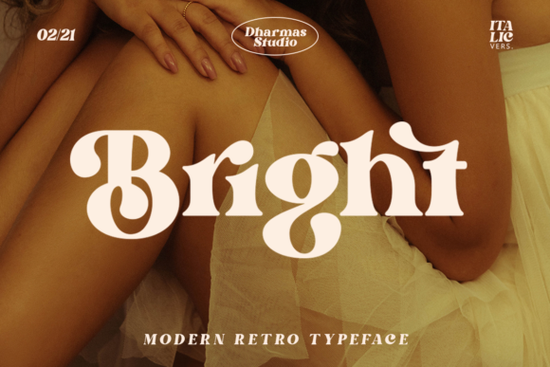
If you're working on a design that needs a little vintage charm with a clean, modern edge, Bright Font might be exactly what you’re looking for. This stylish serif typeface blends retro 60s and 70s aesthetics with bold clarity making it ideal for posters, packaging, branding, or even print-on-demand apparel. What sets it apart isn’t just its look, but how much flexibility it offers: over 50 unique alternates and ligatures are built right in, thanks to PUA encoding, so you can easily customize letterforms without switching fonts.
Why choose a serif font with retro flair?
Serif fonts like Bright carry a sense of tradition and reliability, but when they lean into retro styling, they also bring energy and personality. That balance is especially useful if you’re designing for small businesses, craft markets, or nostalgic-themed products. Unlike overly ornate vintage fonts, Bright stays legible and bold perfect for headlines, logos, or short blocks of text where you want visual impact without sacrificing readability.
If you enjoy experimenting with letterforms, you’ll appreciate how Bright’s alternates let you swap in different glyphs to create subtle (or dramatic) variations. This level of detail helps your work stand out, whether you’re making greeting cards, t-shirt designs, or social media graphics.
How does Bright compare to other creative serif fonts?
Not all serif fonts offer the same versatility. For example, Ethereal Font leans more delicate and script-like, great for wedding invitations or luxury branding, while Luxena Font brings high-contrast elegance suited for editorial layouts or upscale product labels. Bright sits in a sweet spot between those it’s structured enough for commercial use but playful enough to feel handcrafted.
Who is this font really for?
Bright Font works well for:
- Print-on-demand sellers creating retro-inspired mugs, posters, or apparel
- Small business owners building a brand identity with warmth and character
- Crafters and hobbyists designing custom stickers, party invites, or scrapbook elements
- Graphic designers needing a versatile headline font that doesn’t require extra plugins
Because it includes OpenType features accessible through most design software (like Adobe Illustrator, Photoshop, or even Canva Pro), you don’t need advanced typography skills to take advantage of its alternates. Just select the glyph panel or enable stylistic sets, and you’re ready to personalize.
Tips for using Bright Font effectively
To get the most out of this font:
- Use it for display text only its bold serifs and variable strokes aren’t meant for long paragraphs.
- Pair it with a clean sans-serif like Montserrat or Helvetica for body copy to keep your layout balanced.
- Experiment with uppercase vs. lowercase the alternates often shine more in all-caps settings, but mixed case can add organic rhythm.
- Avoid overusing ligatures a few well-placed ones add flair; too many can clutter the design.
Remember, the goal isn’t to make every word look “different,” but to enhance readability while adding subtle vintage texture. Less is often more.
If you’re drawn to Bright but want something slightly softer or more dramatic, browsing related options like other serif fonts in the same category can help you fine-tune your choice without starting from scratch.
Before downloading, consider your project’s tone: Does it call for confident nostalgia? Playful authenticity? If so, Bright Font delivers both without requiring complex workflows. And because it’s PUA-encoded, you won’t run into compatibility issues on most platforms used by creators today.
With its blend of retro confidence and modern usability, Bright Font gives you creative control without unnecessary complexity exactly what many hands-on makers need.